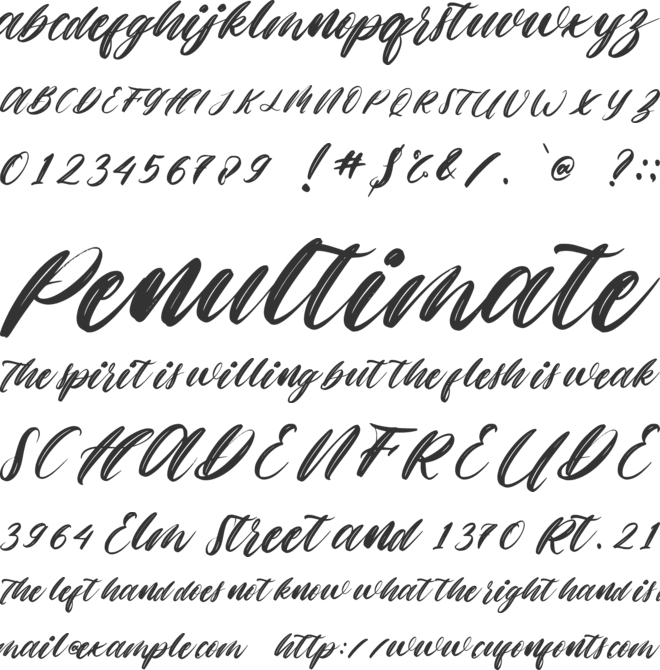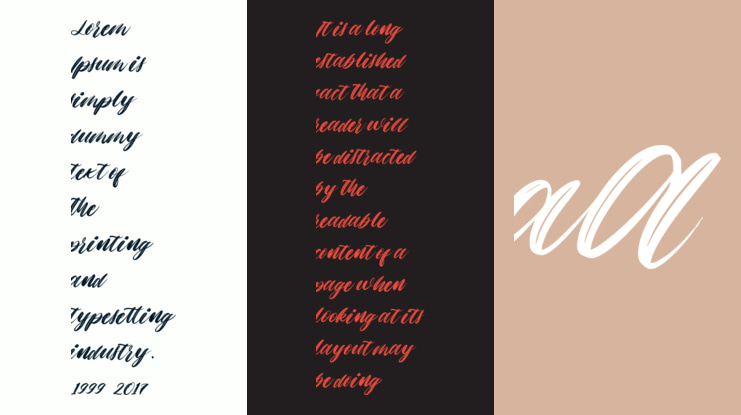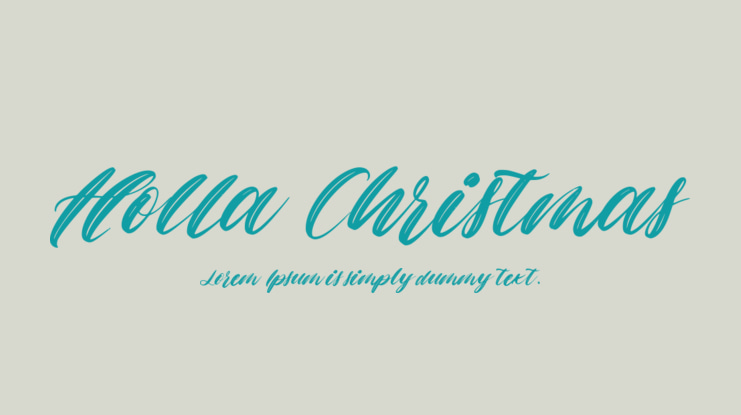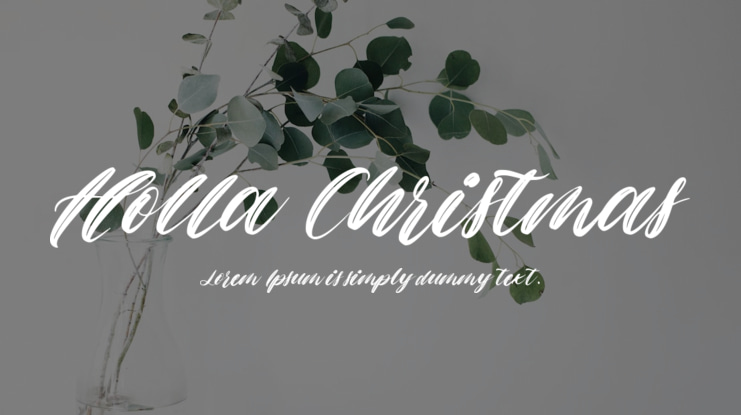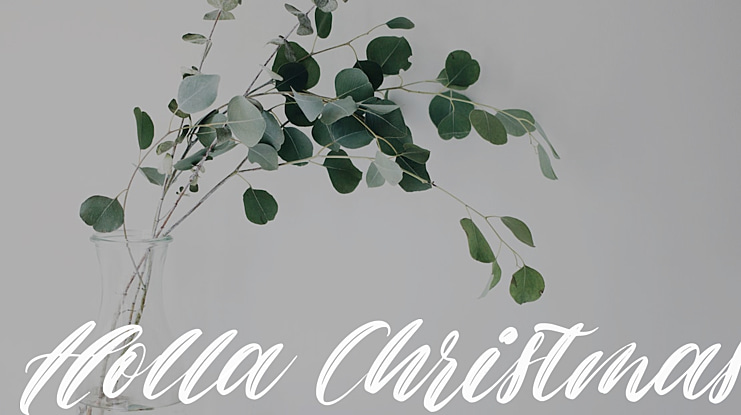
Holla Christmas Font
Holla Christmas is a dazzling and timeless handwritten font. It is the best choice for your Christmas season. This font is PUA encoded which means you can access all the glyphs and sweeps easily!